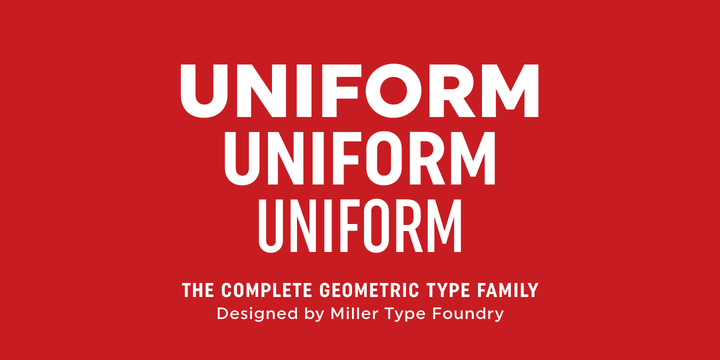
Uniform
Uniform is a multi-width geometric type family designed around the circle. The O of the Regular width is based on a circle, the O of the Condensed width is based on 1.5 circles stacked (with straight sides)
and the O of the Extra Condensed width is based on two circles stacked with straight sides as well, and all other characters are derived from this initial concept. This unique idea creates a remarkably fresh type family that bridges the gap between circular geometric typefaces and condensed straight-sided typefaces. Uniform also includes many opentype features like Old Style Figures, Tabular Lining Figures, Alternate characters, Ligatures and more. More…